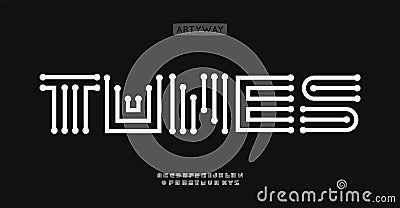
Tech Geometric Font, Digital Circuit Pattern Letters, Maze Labyrinth Font For Futuristic Typography, Minimal Tech Vector Illustration
Tech geometric font, digital circuit pattern letters, maze labyrinth font for futuristic typography, minimal tech Vector Illustration
Tech geometric font, digital circuit pattern letters, maze labyrinth font for futuristic typography, minimal tech branding design, vector typeset